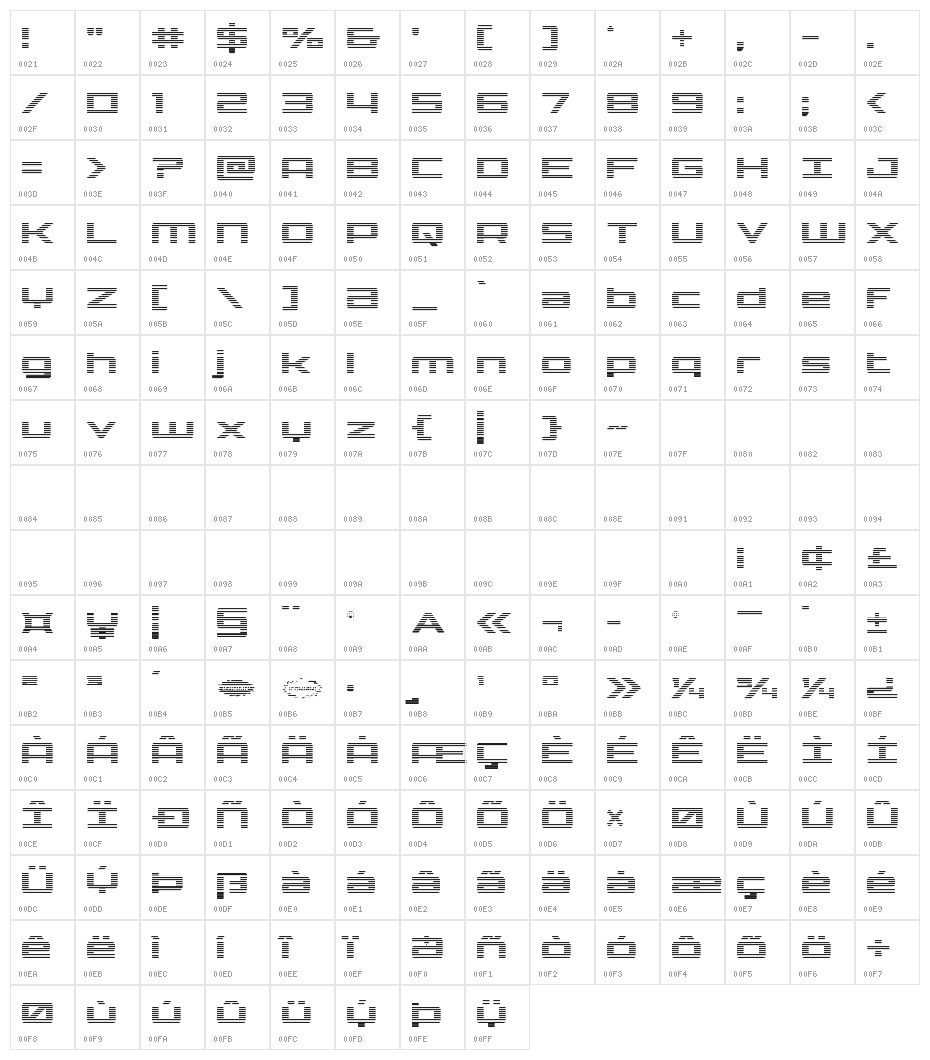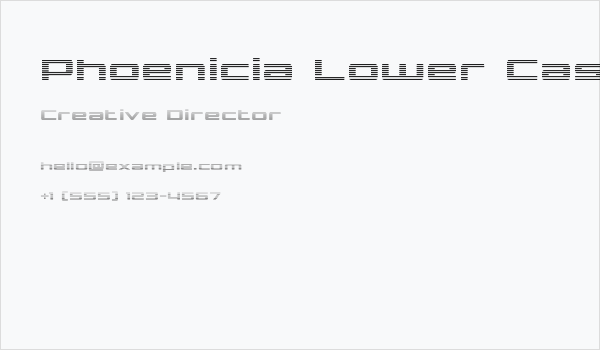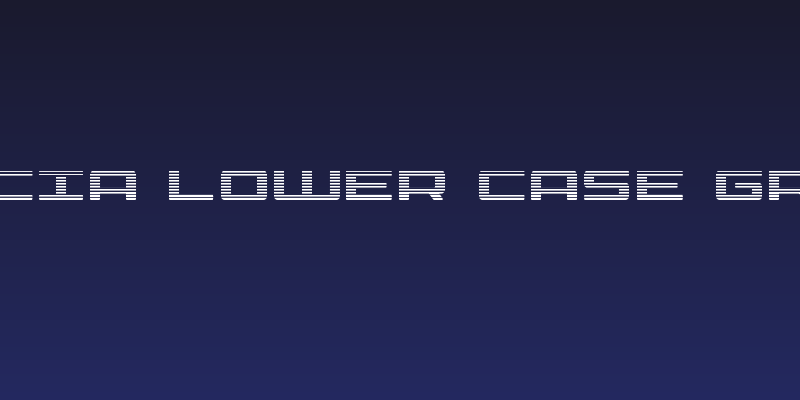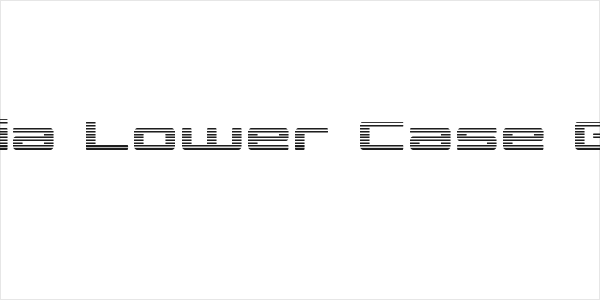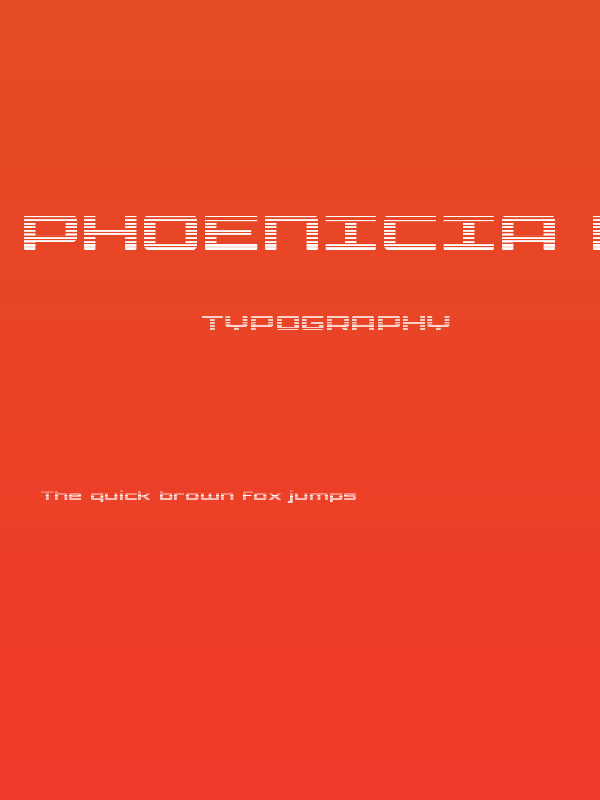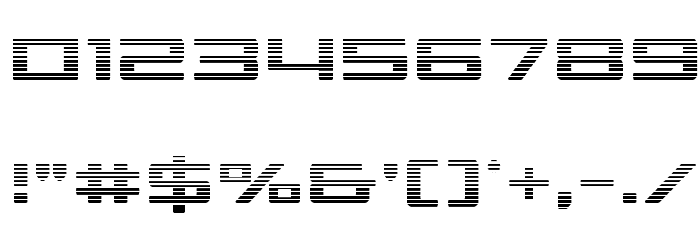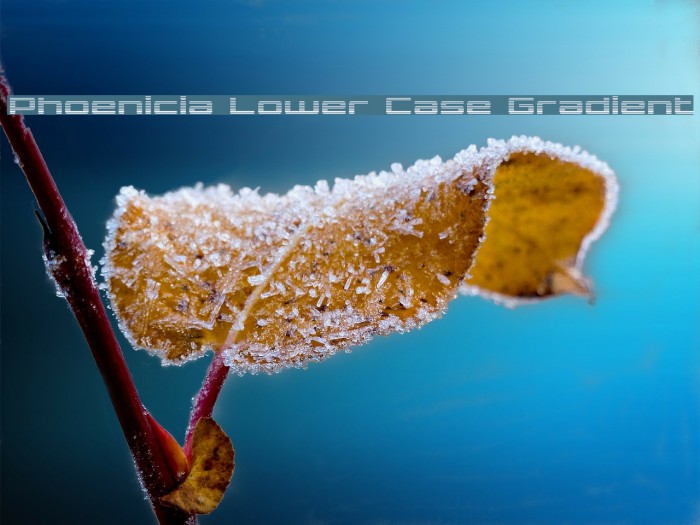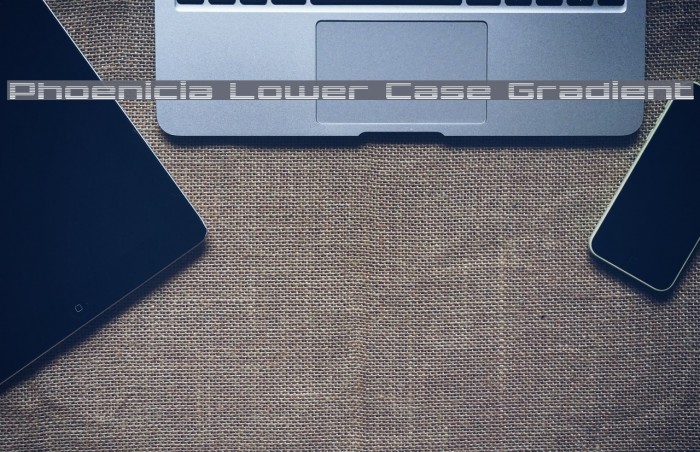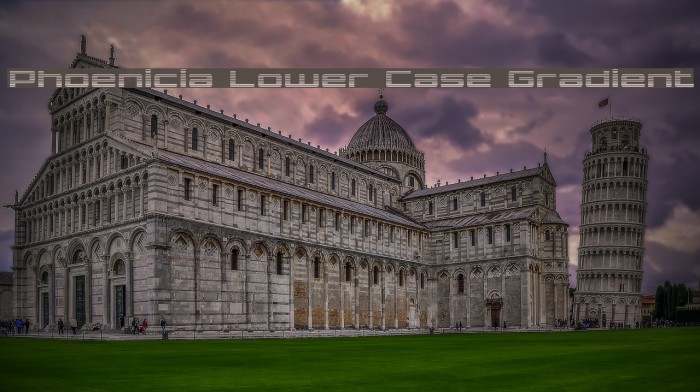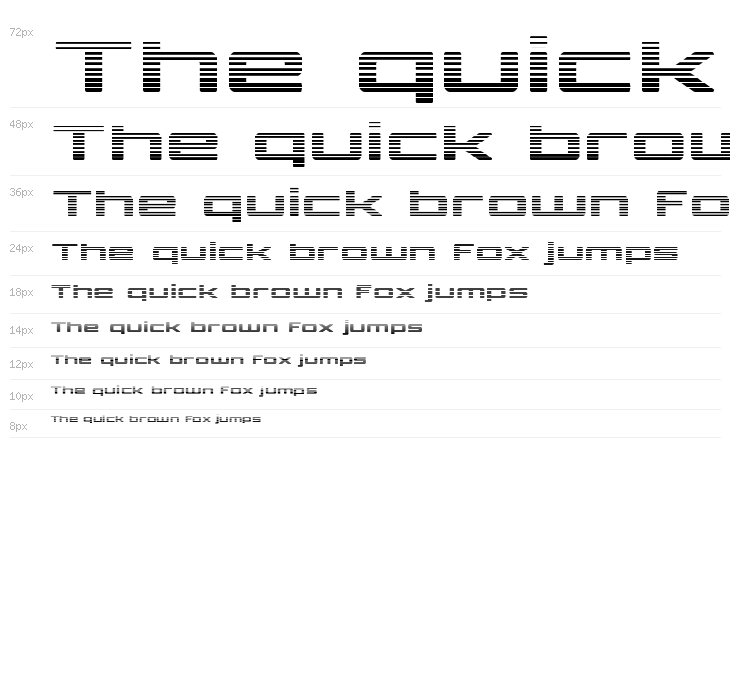
Phoenicia Lower Case Gradient Font
Phoenicia Lower Case Gradient Description
This font features a unique, futuristic design with a distinct horizontal line pattern running through each character. The geometric structure gives it a modern and digital feel, while the consistent line spacing adds a sense of rhythm and movement. The uppercase and lowercase letters maintain a uniform style, with sharp angles and clean edges. Numbers and special characters are designed to match the overall aesthetic, ensuring a cohesive look across all text elements. The font's bold appearance and high contrast make it stand out, ideal for eye-catching designs.
| Proposed Projects | Ideal for technology branding, sci-fi posters, digital art, and modern web design. |